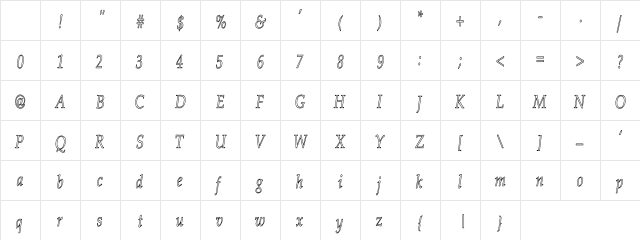
Palatino-Thin-IHC is a composed and adaptable typeface that performs quietly and consistently across a wide range of design contexts. Its slender proportions lend an understated elegance to any composition.
Pro Tip: Use Palatino-Thin-IHC in both headline and body roles to test its range before committing to a single application.